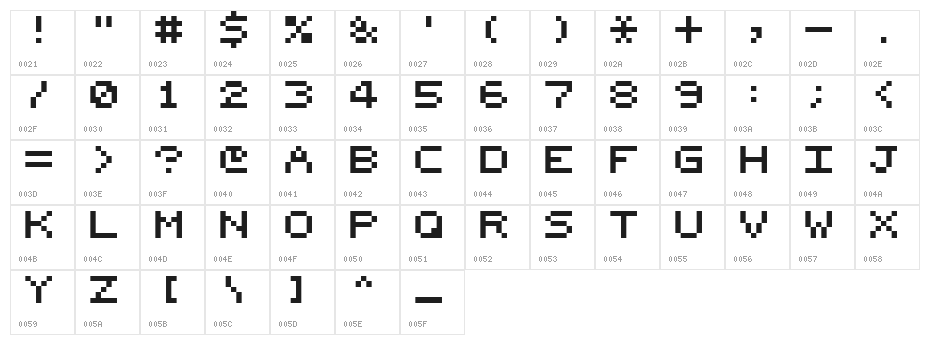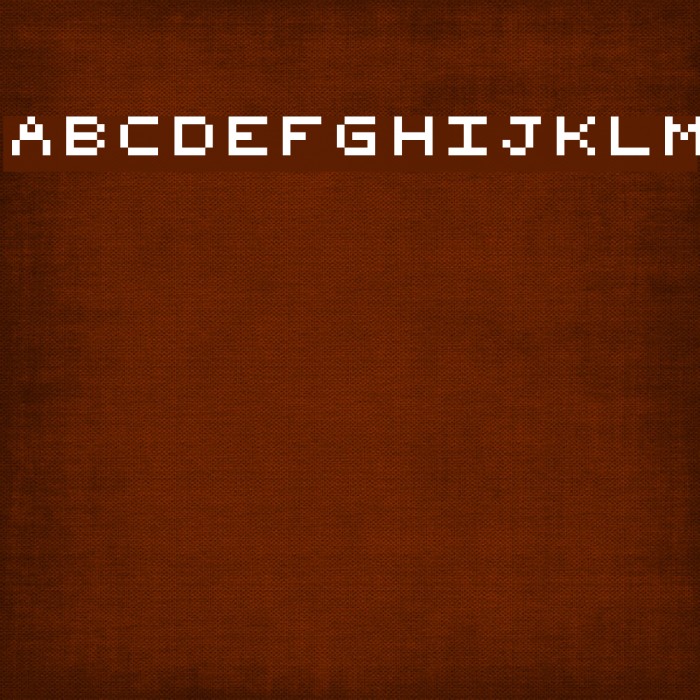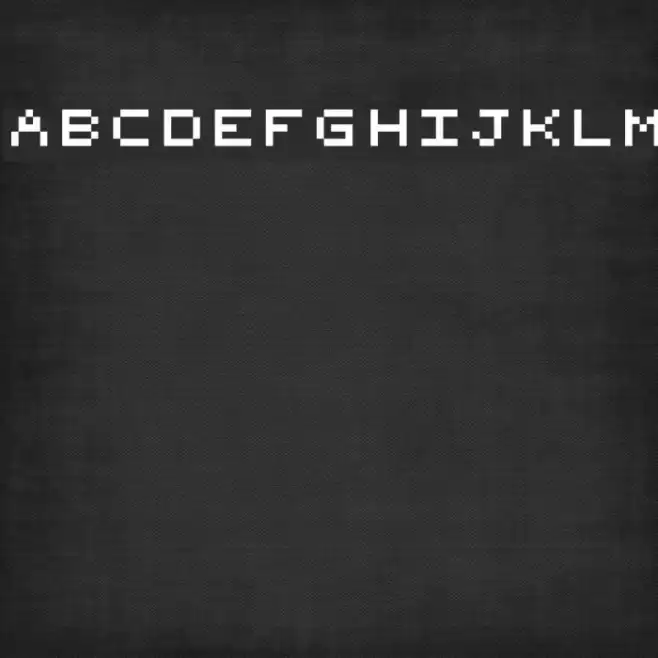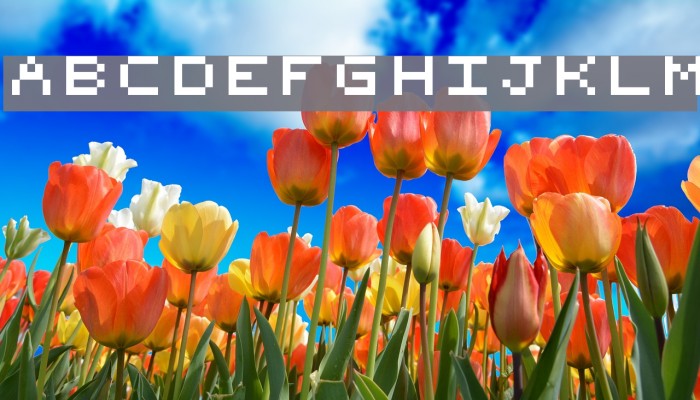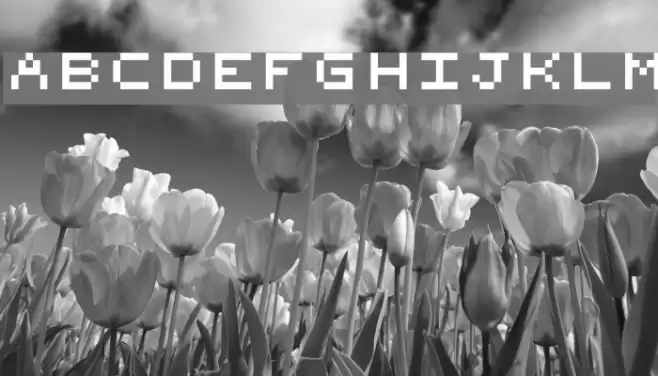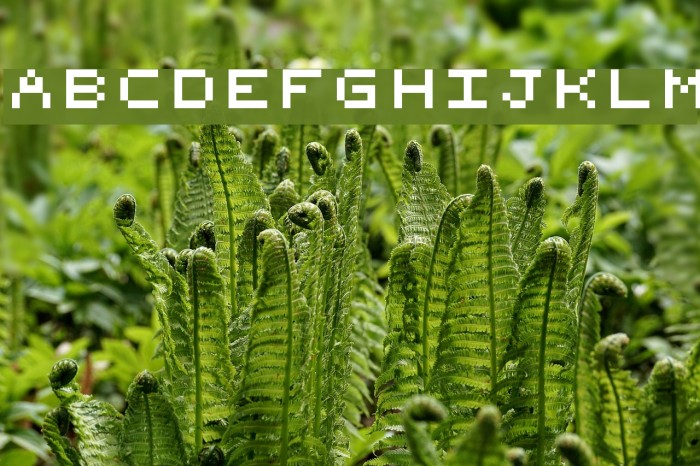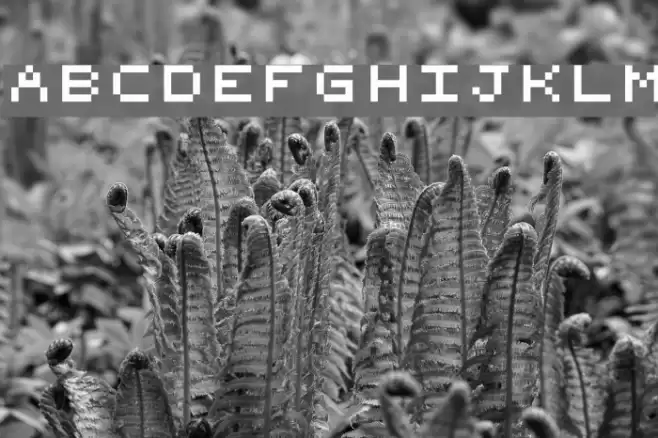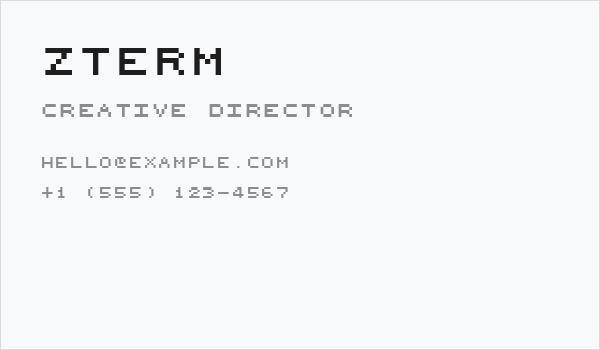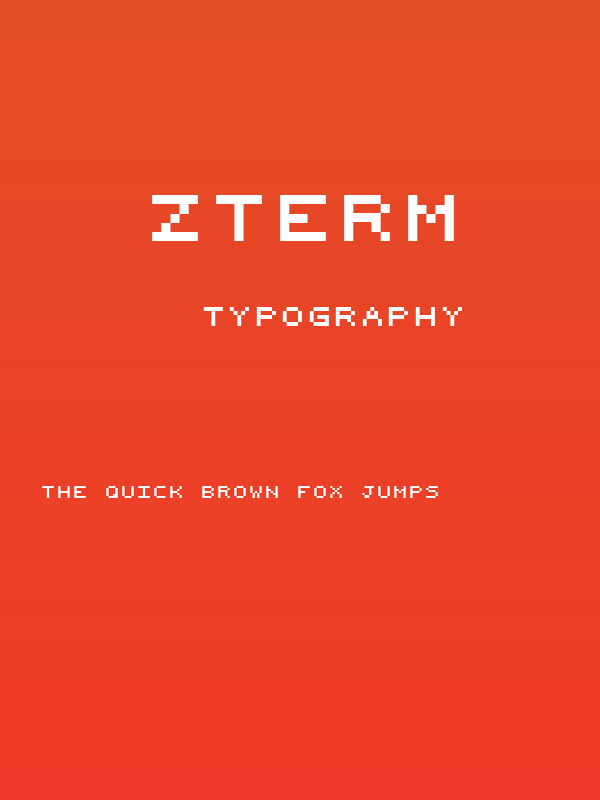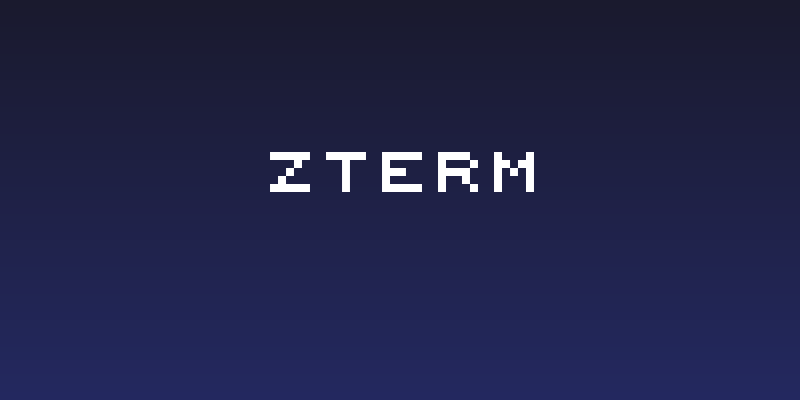
zTerm Font
zTerm Description
This font features a pixelated, blocky design reminiscent of early digital and video game typography. Each character is constructed with a grid-like precision, giving it a distinctly retro and digital aesthetic. The uppercase and lowercase letters maintain a uniform height, contributing to a monospaced appearance. The numbers and special characters follow the same pixelated style, ensuring consistency across all glyphs. This font's nostalgic charm and simplicity make it ideal for projects that aim to evoke a sense of vintage digital technology or retro gaming culture.
| Use Case | Logos, Headlines, Digital displays |
| Proposed Projects | Ideal for retro video games, digital art projects, tech-themed designs, and nostalgic branding. |